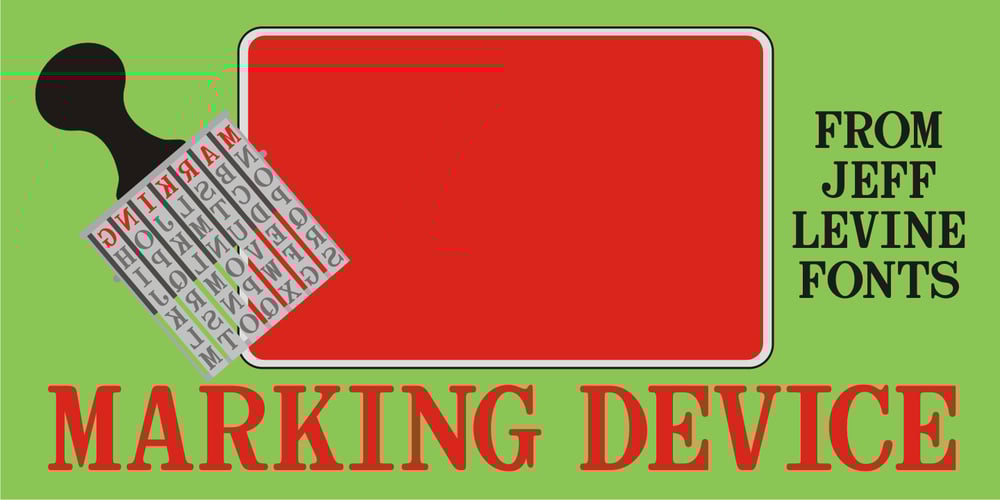
Marking Device JNL Font Family was designed by Jeff Levine and published by Jeff Levine. Marking Device JNL contains 1 styles and family package options. Similar to date and numbering stamps, there once was manufactured rotary band stamps with different letter and number configurations that were used for various identification purposes. From a set of vintage bands acquired from a now-closed rubber stamp shop, Marking Device JNL replicates the serif typeface used on these devices.